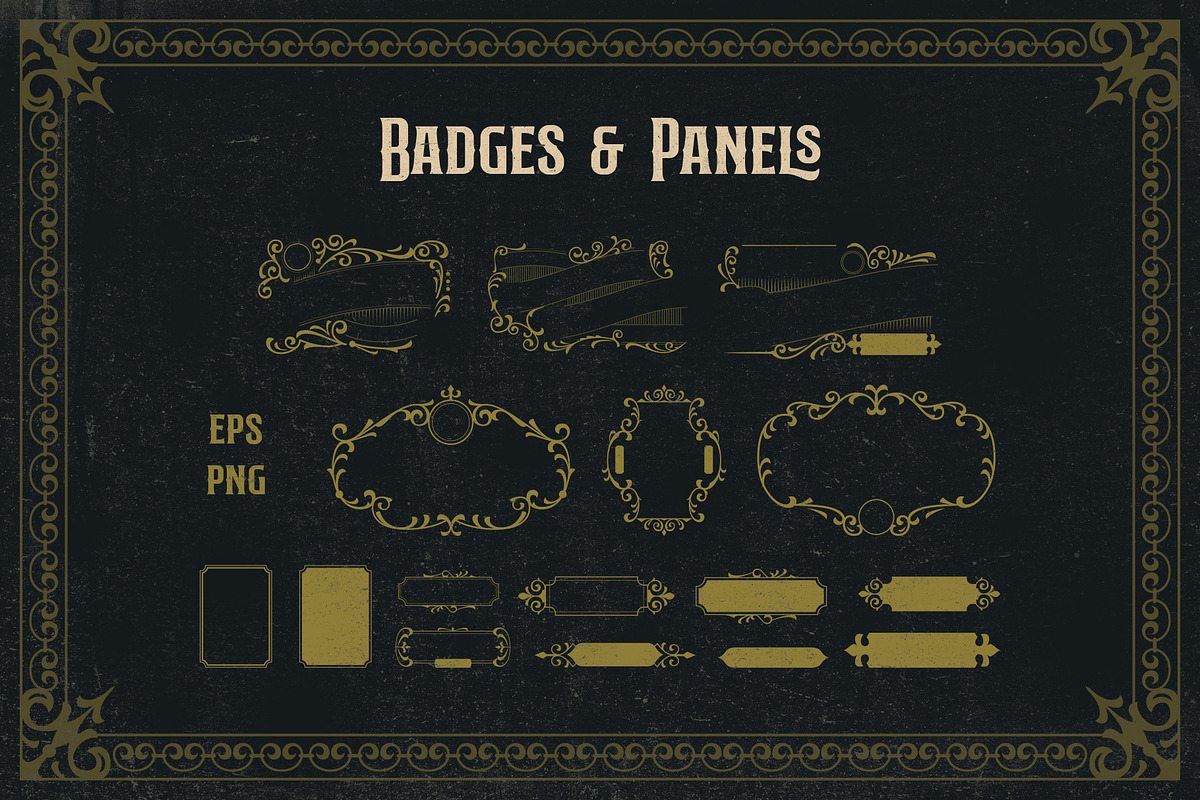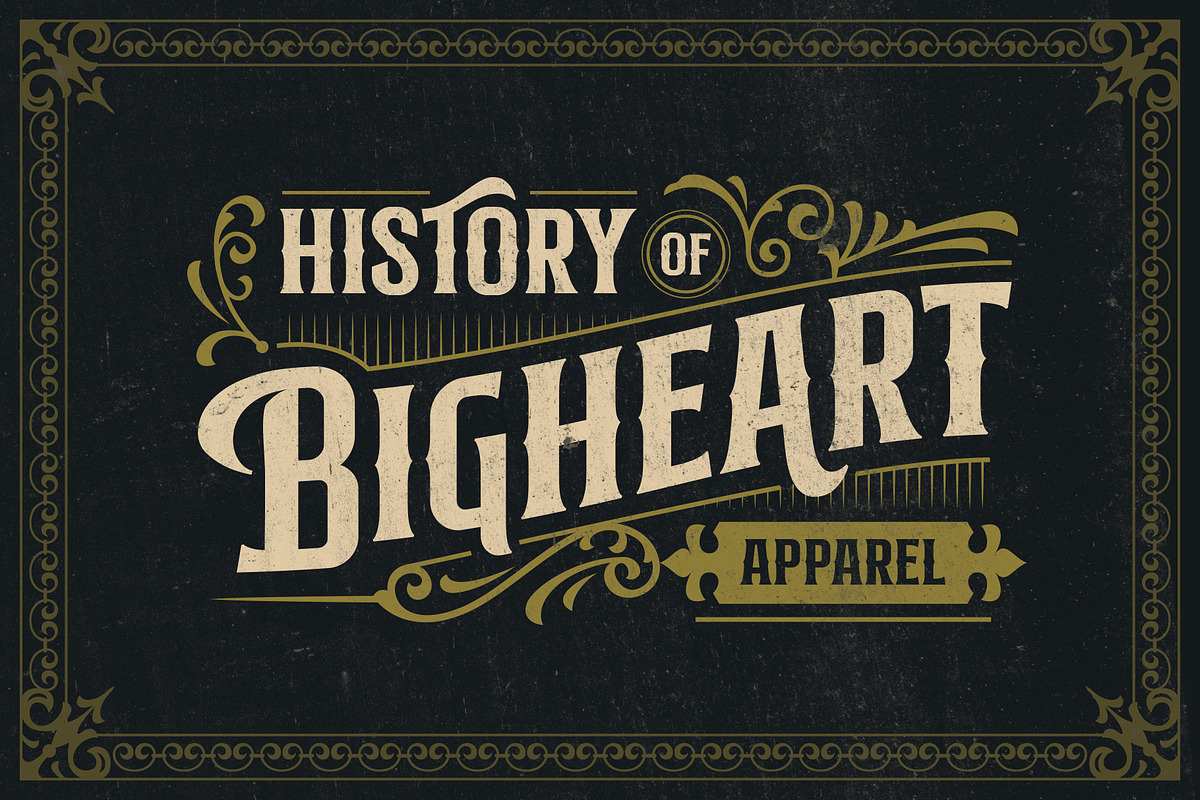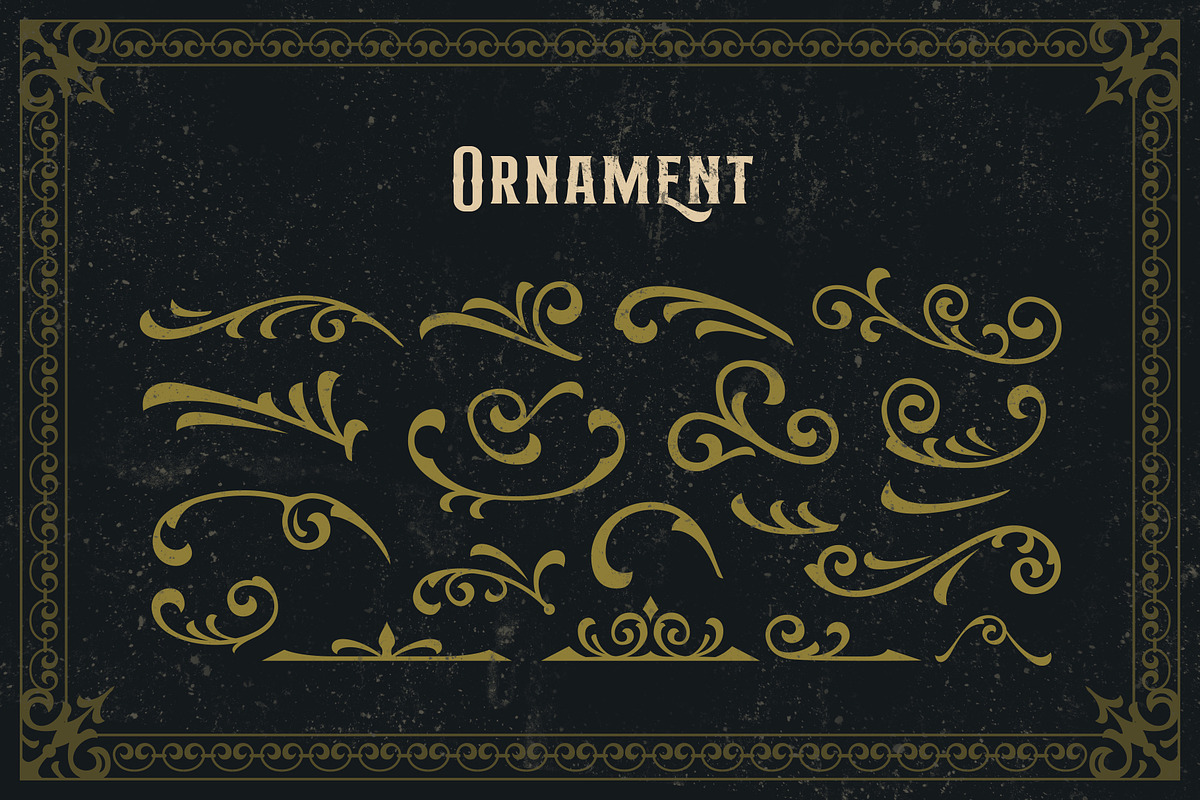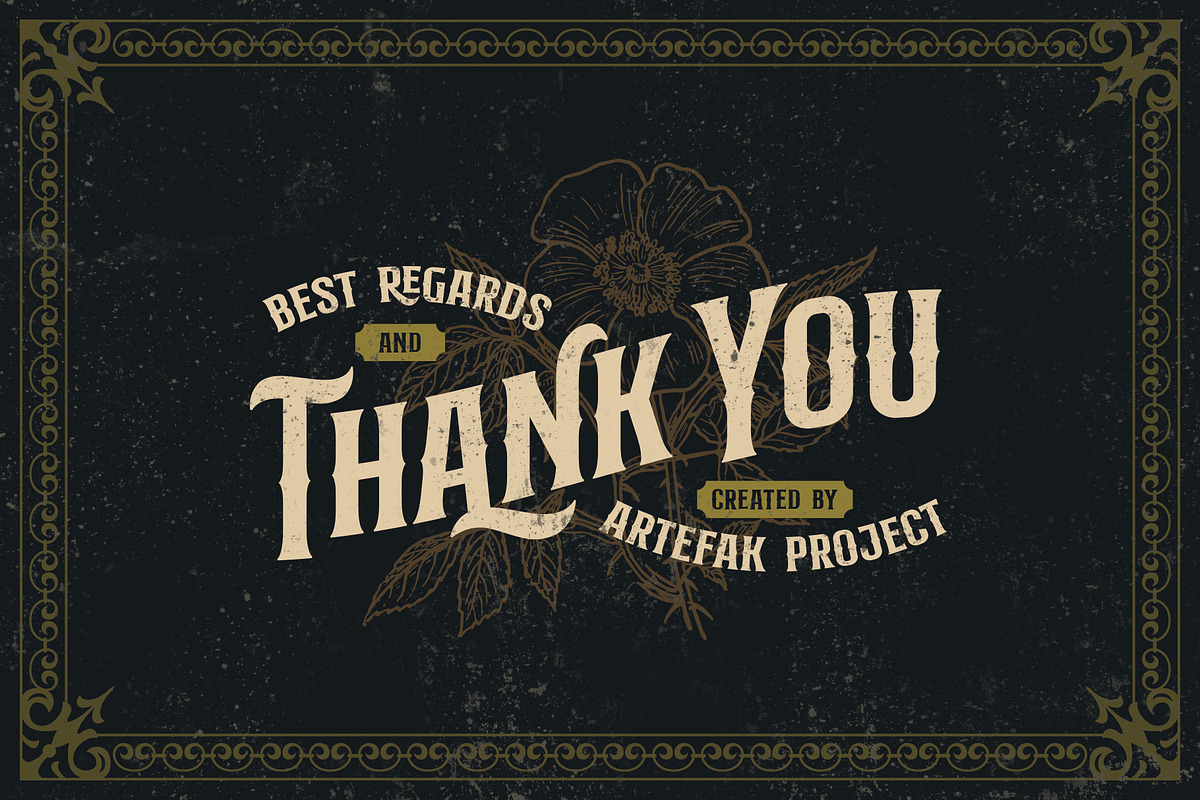
Hermona Vintage + Extras
A new experimental vintage font called 'Hermona'. The combination of retro and old fashioned era. Inspired from old school badges and label. Hermona is an all-caps font that perfect for headline. A great choice to use in label, poster, signage, t-shirt, storefront, greeting cards and logotype.
Hermona Typeface also complete with alot of special character such as stylistic alternates or swashes which are possible to combine and get more calligraphic looks. The ornaments and premade also include in a pack.
Typeface featured :
Smallcaps
Punctuation & symbols
Accents
Custom ligatures
Contextual Alternates
Swashes
Stylistic set 01-05